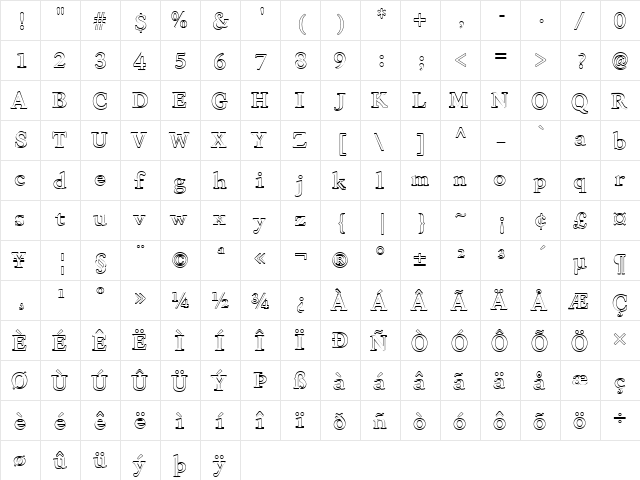
FZ ROMAN 28 HOLLOW Normal Font Preview
FZ ROMAN 28 HOLLOW Normal
Design Context for FZ ROMAN 28 HOLLOW Typeface
FZ ROMAN 28 HOLLOW is a composed and adaptable typeface that performs quietly and consistently across a wide range of design contexts.